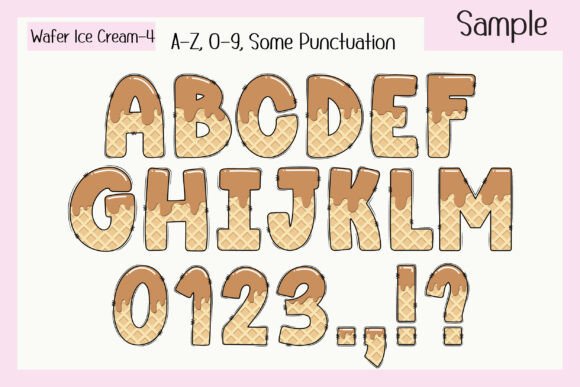
Introducing “Wafer Ice Cream” a fun and playful ice cream-inspired font with a sweet color palette designed to add a delightful touch to your creations. This font set consists of 4 vibrant color fonts and comes with 20 bonus cute matching clip arts, making it perfect for Christmas posters, T-shirts, branding, custom DIY craft projects, quotes, personalized names, and more. “Wafer Ice Cream” is the ideal choice to bring a charming and whimsical vibe to all your creative works!
Wafer Ice Cream Font